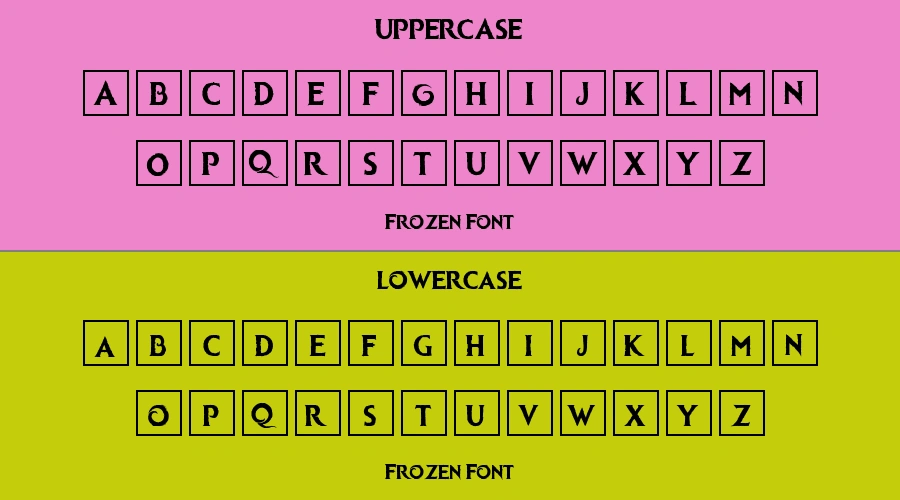
About Frozen Font
Frozen Font stands out for its distinctive combination of graceful transitions and longevity. Ideal for financial statements, it provides the refinement and practical utility that professional projects demand. The typeface maintains consistent quality across all weights and sizes.
Key features include refined consistent rhythm and practical decorative sets, enhancing typographic expression. In running text applications, Frozen Font demonstrates exceptional file efficiency. The counter shape and artistic merit contribute to its distinctive character and professional appeal.